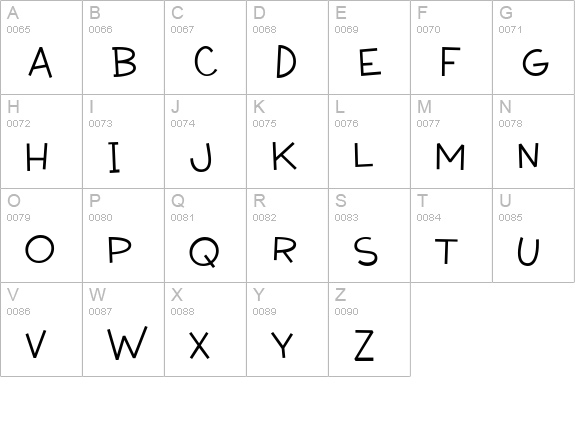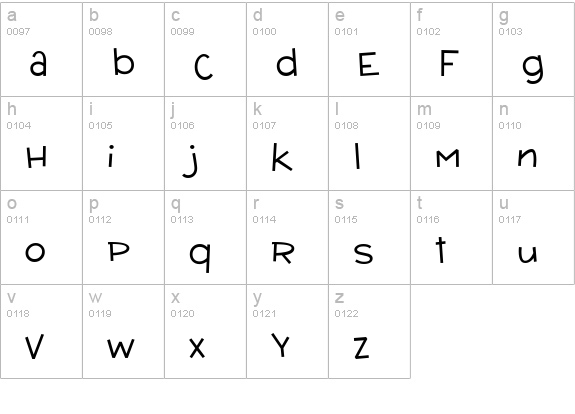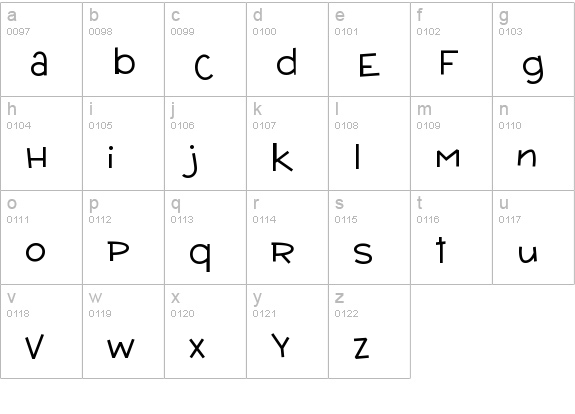
Introducing the vibrant and energetic Wacky Action BTN Square font! This unique typeface is the perfect choice for those who want to inject a touch of fun and excitement into their designs. With its playful and dynamic letterforms, Wacky Action BTN Square exudes a sense of motion and liveliness that is sure to capture attention. This font is perfect for a wide range of projects, from children's books and posters to logos and branding materials. Its bold and quirky aesthetic adds a touch of personality and whimsy to any design, making it ideal for those looking to break free from traditional, mundane typography. Best of all, Wacky Action BTN Square is freely available to download at FontsMarket.com. This means that you can easily access this fantastic font and start incorporating its playful charm into your projects without breaking the bank. Whether you are a professional designer or a hobbyist, this free font is a valuable addition to your creative arsenal. So why wait? Head over to FontsMarket.com and get your hands on Wacky Action BTN Square today. Let your imagination run wild as you explore the endless possibilities this font has to offer. Embrace the free-spirited nature of this typeface and bring a touch of wackiness to your designs.